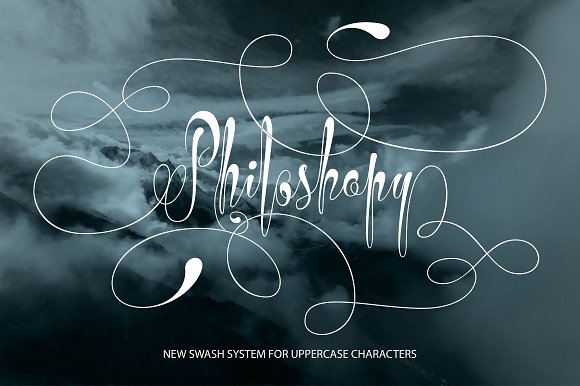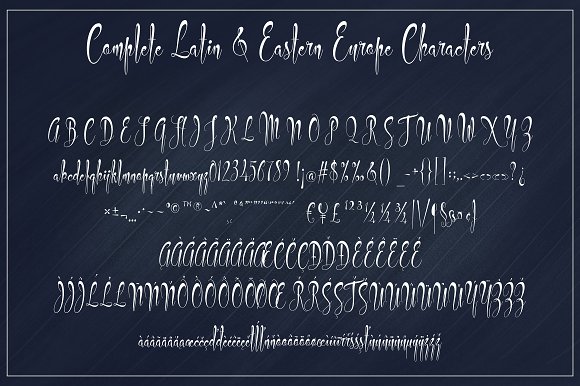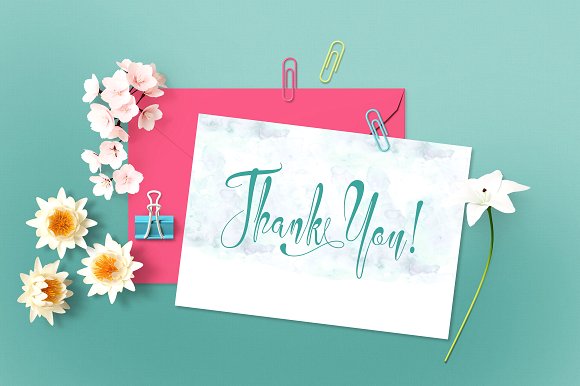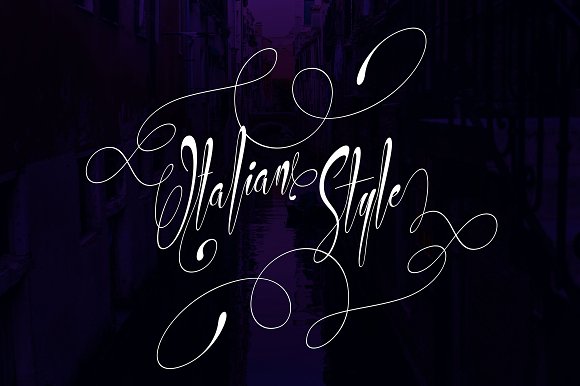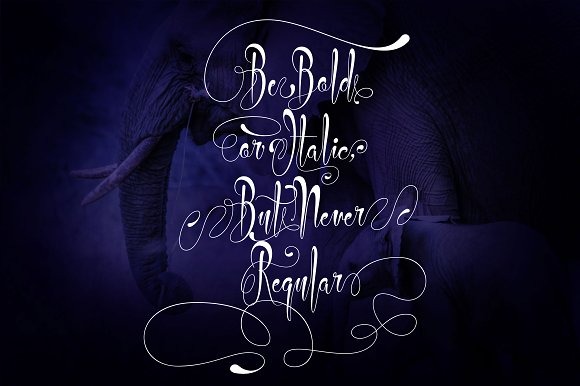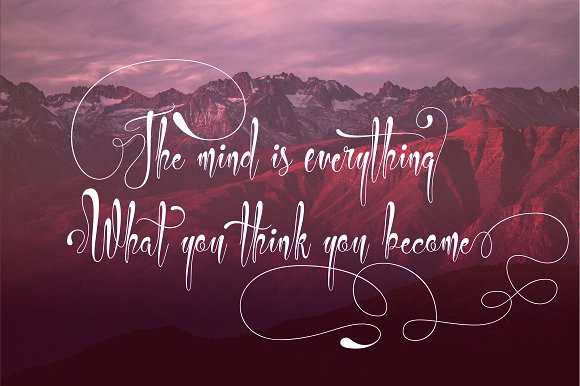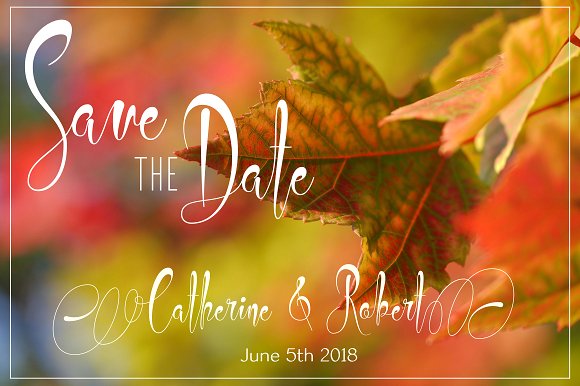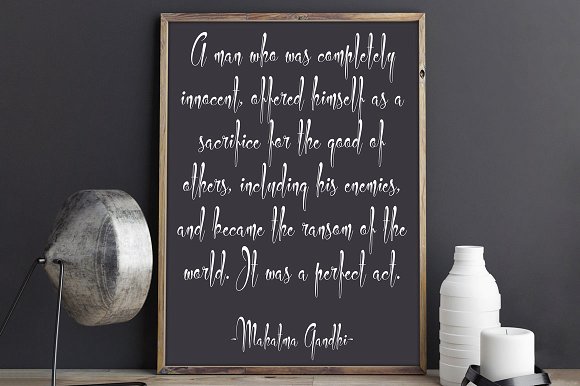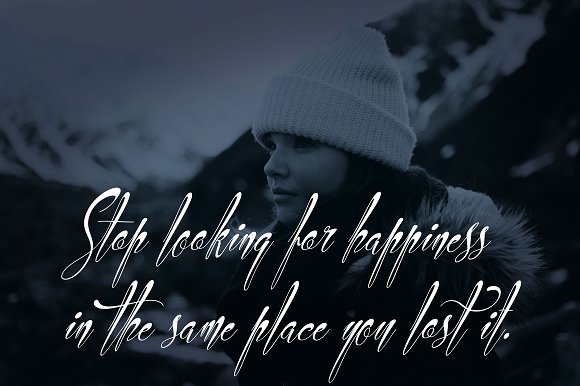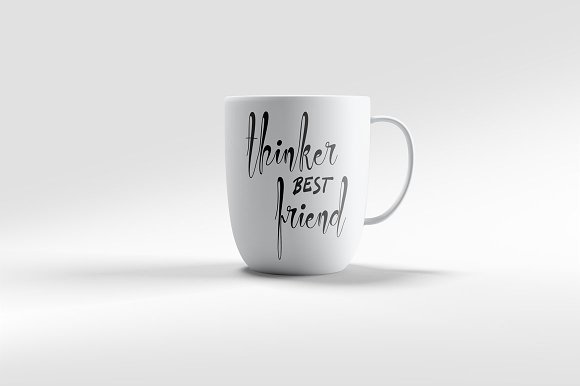
Philoshopy Font
About Philoshopy Font
Philoshopy is a new swash system for uppercase characters. With it’s beautiful swashes, Philoshopy can be used for a wide range of designs